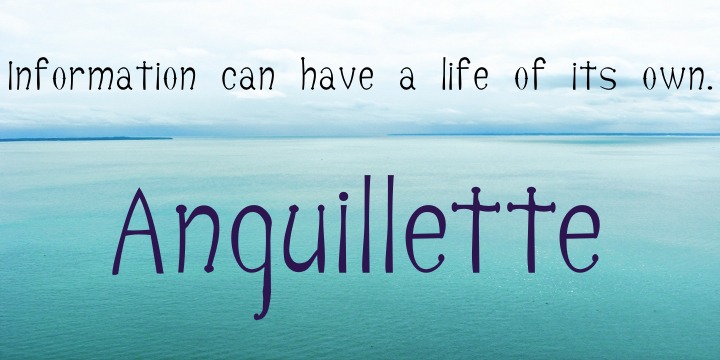
Every one talks about going Green. It will be the new economy. No one knows what that world might look like. However, type styles in the Art Nouveau looked to the environment for design influences years ago. This font is based on that concept and is meant to have an organic flowing lilt to it. It was suggested by the sticks floating in a river and a favourite old chair. So be a little organic in your expression.